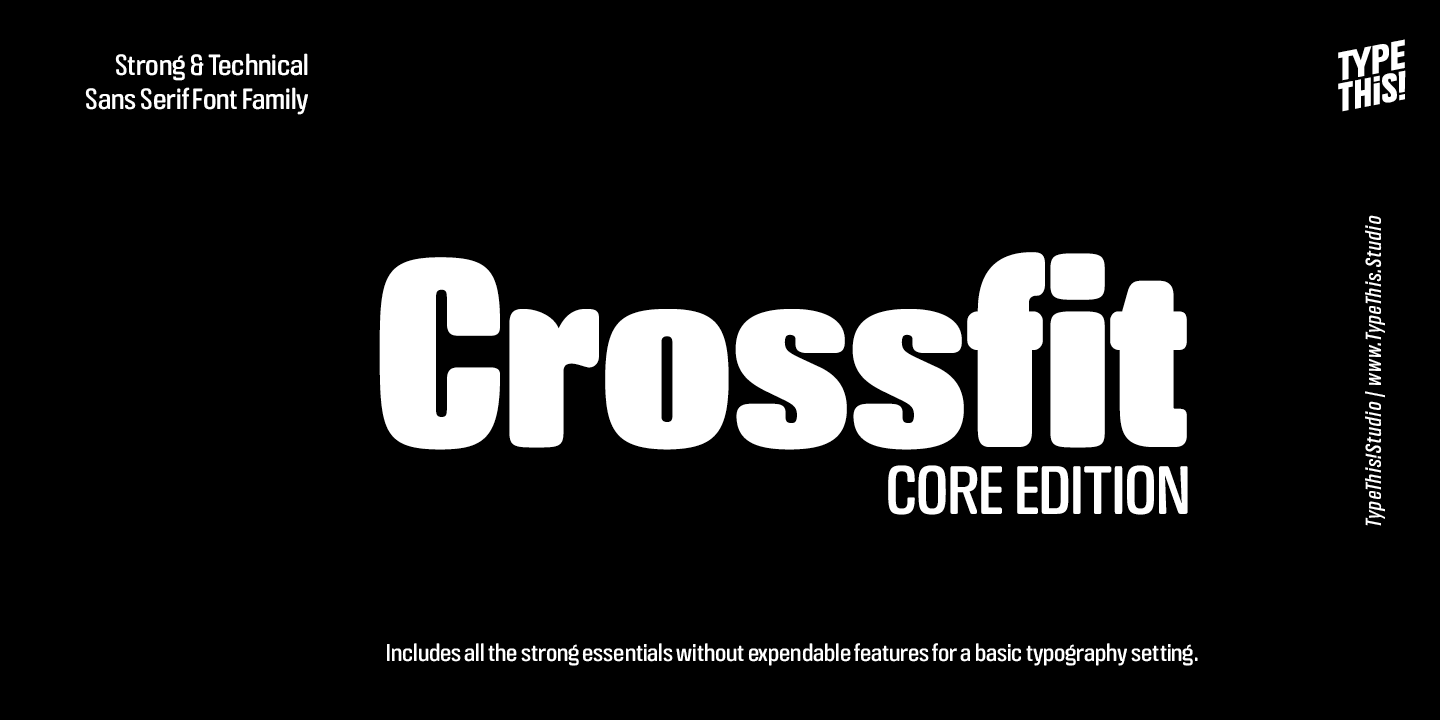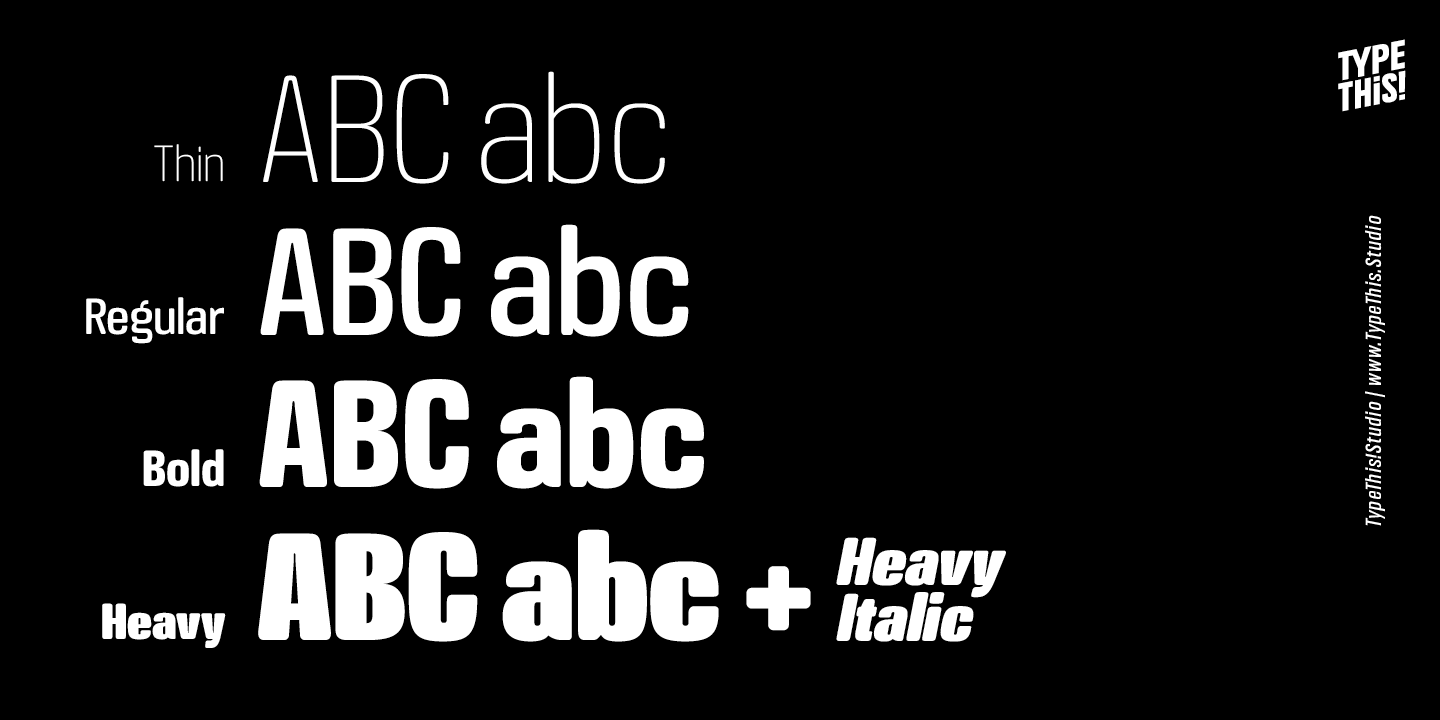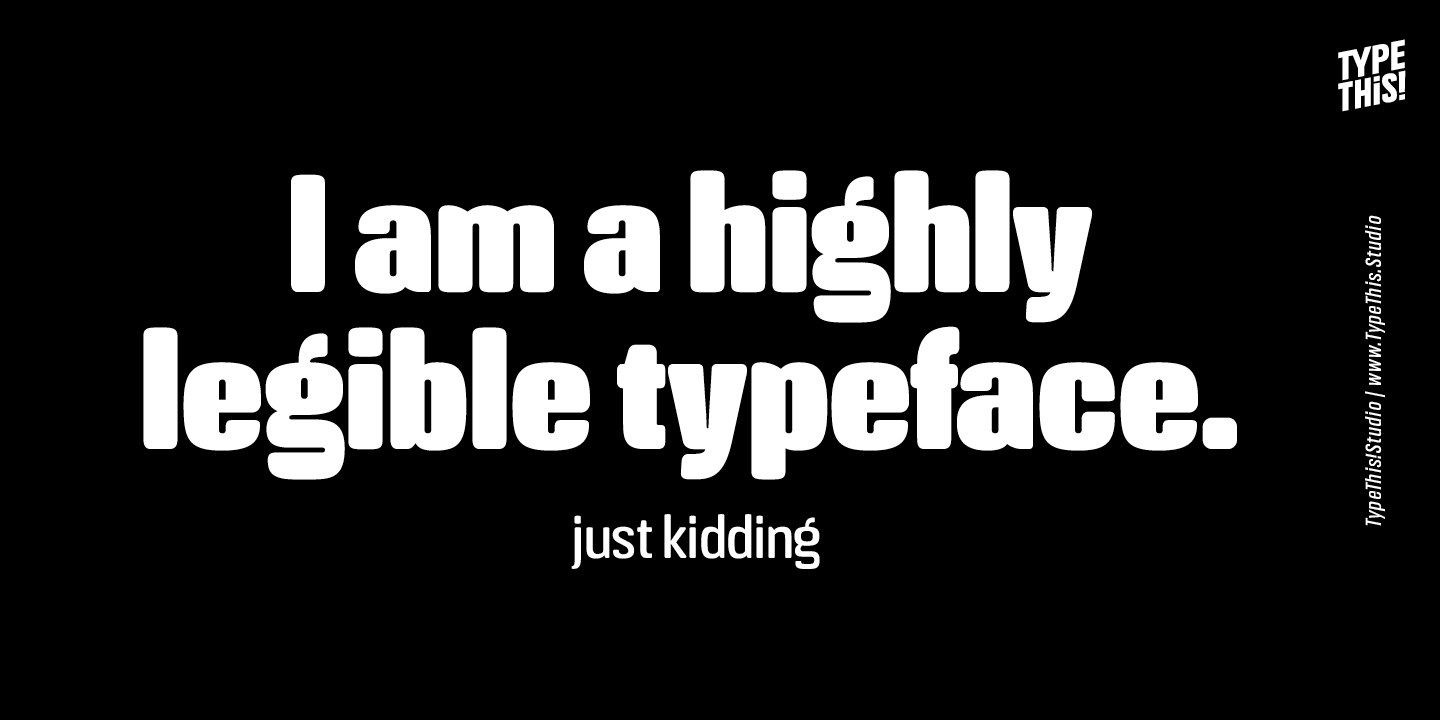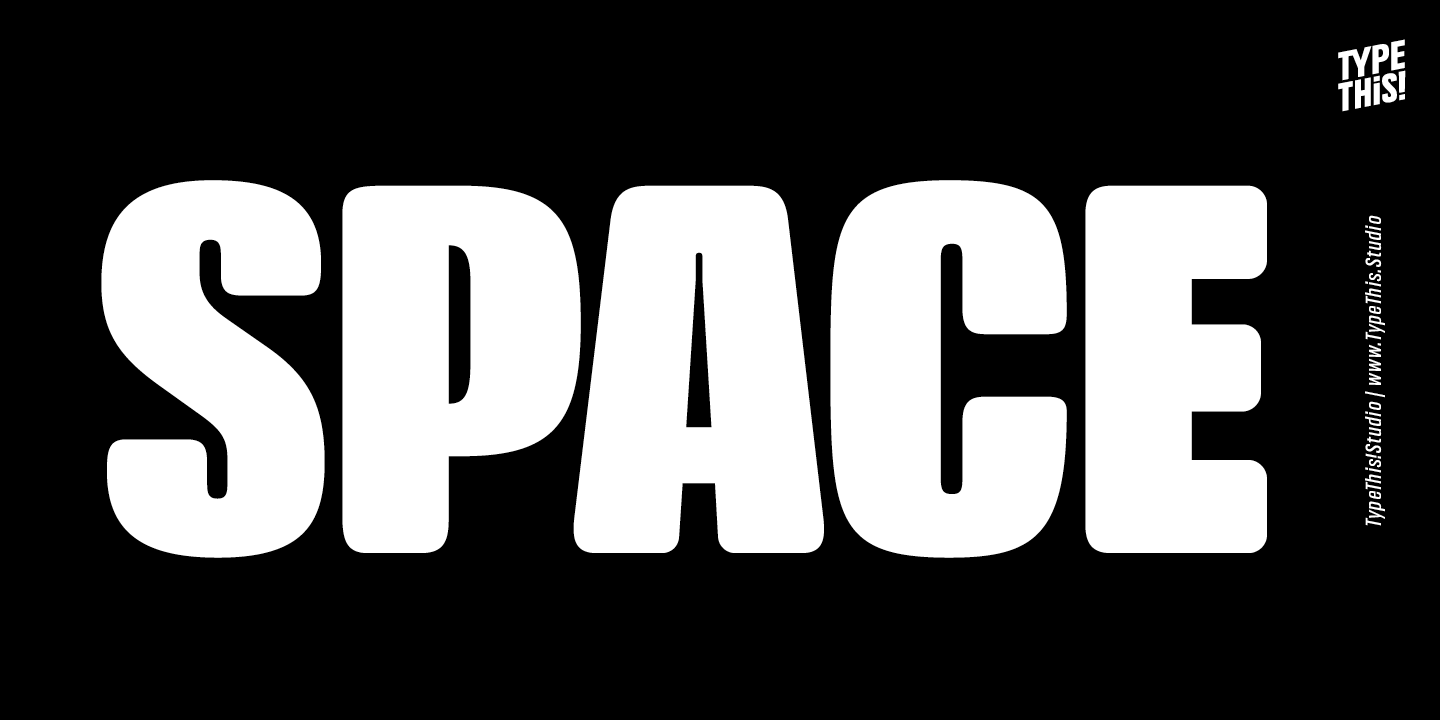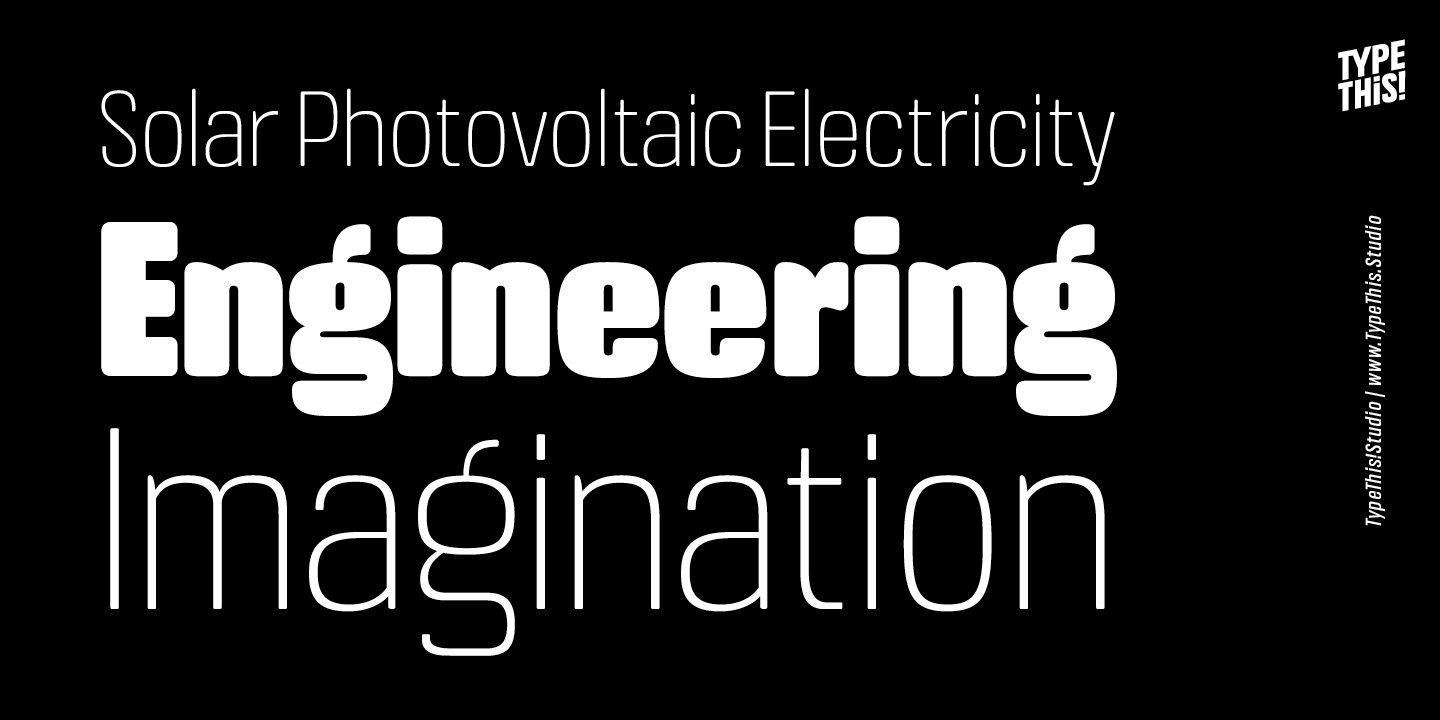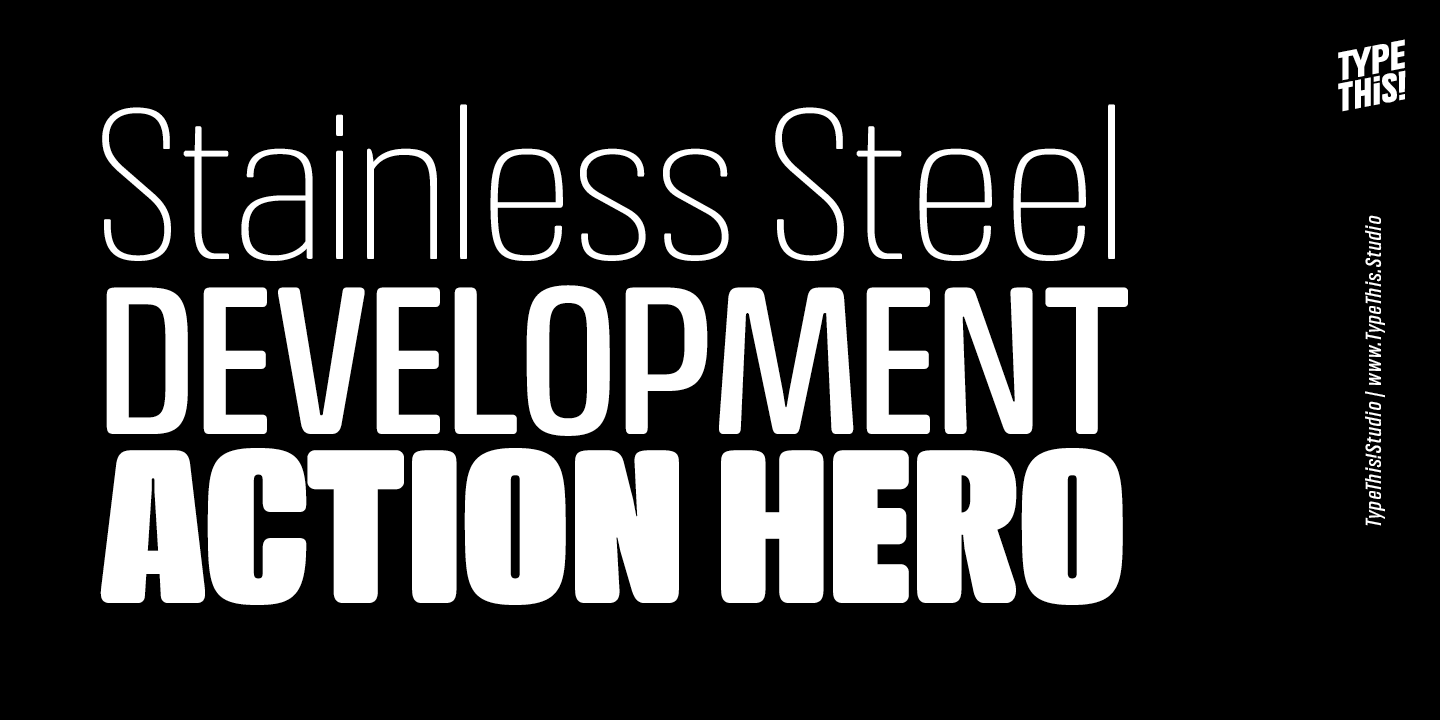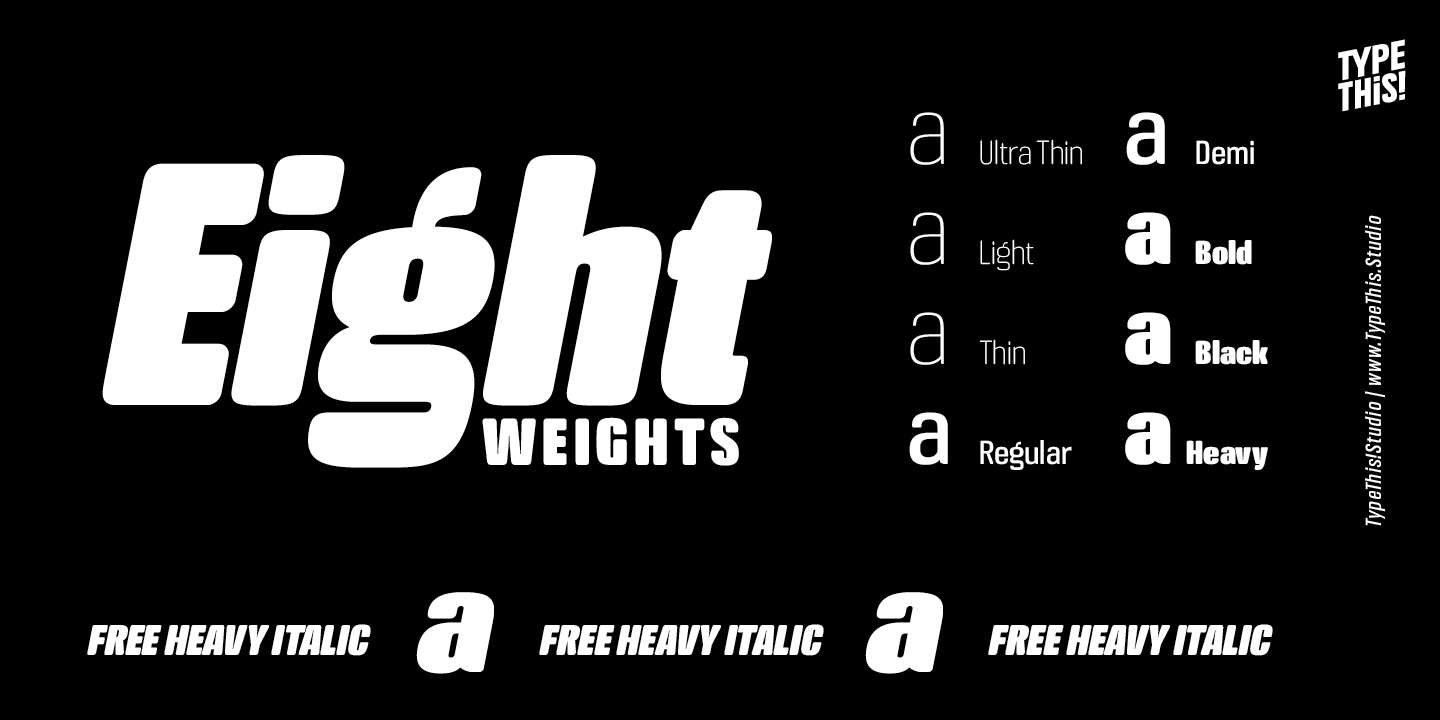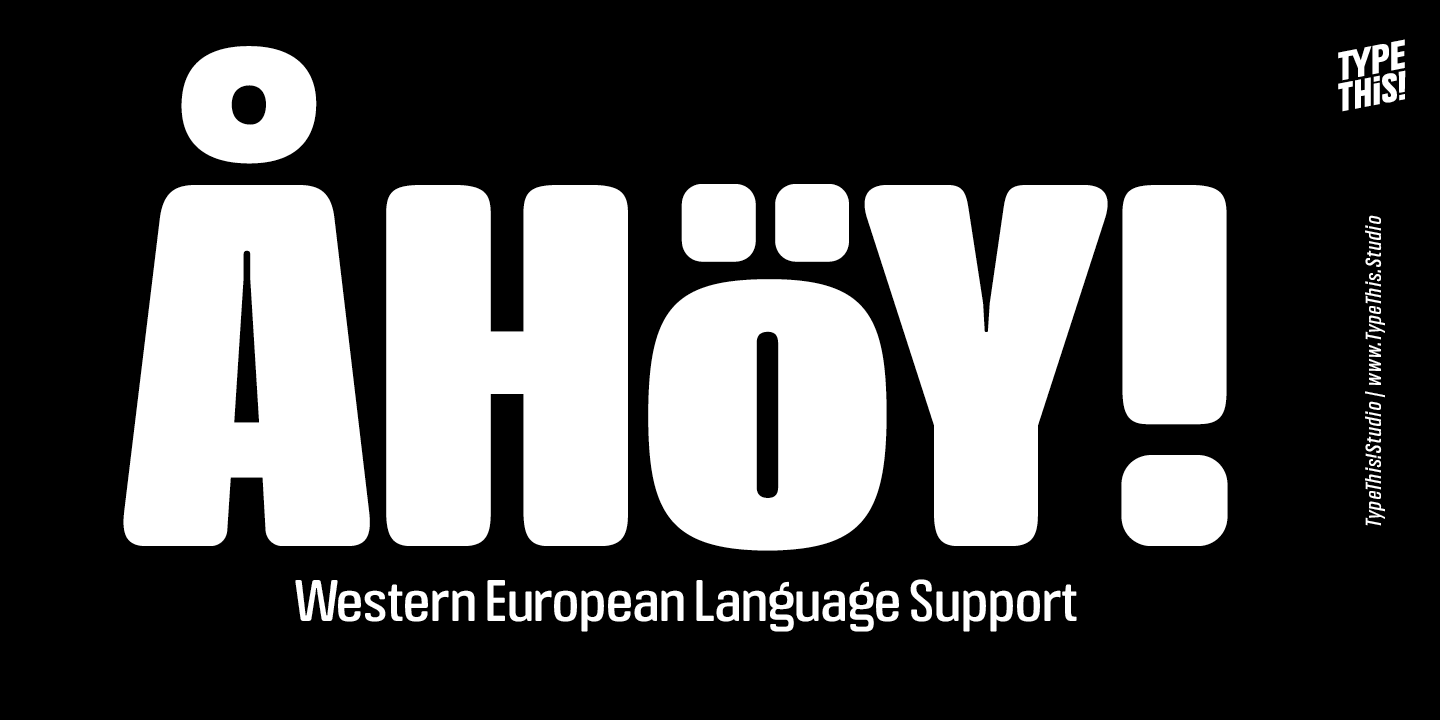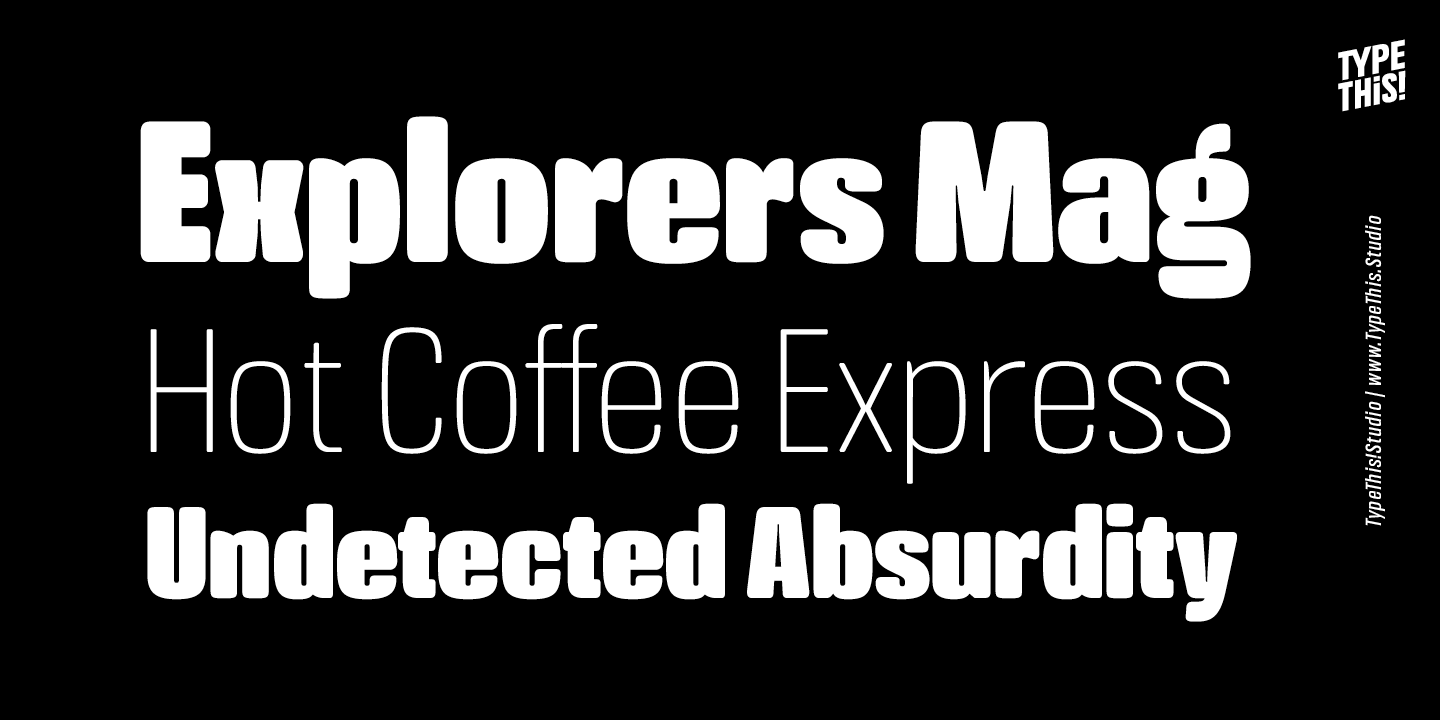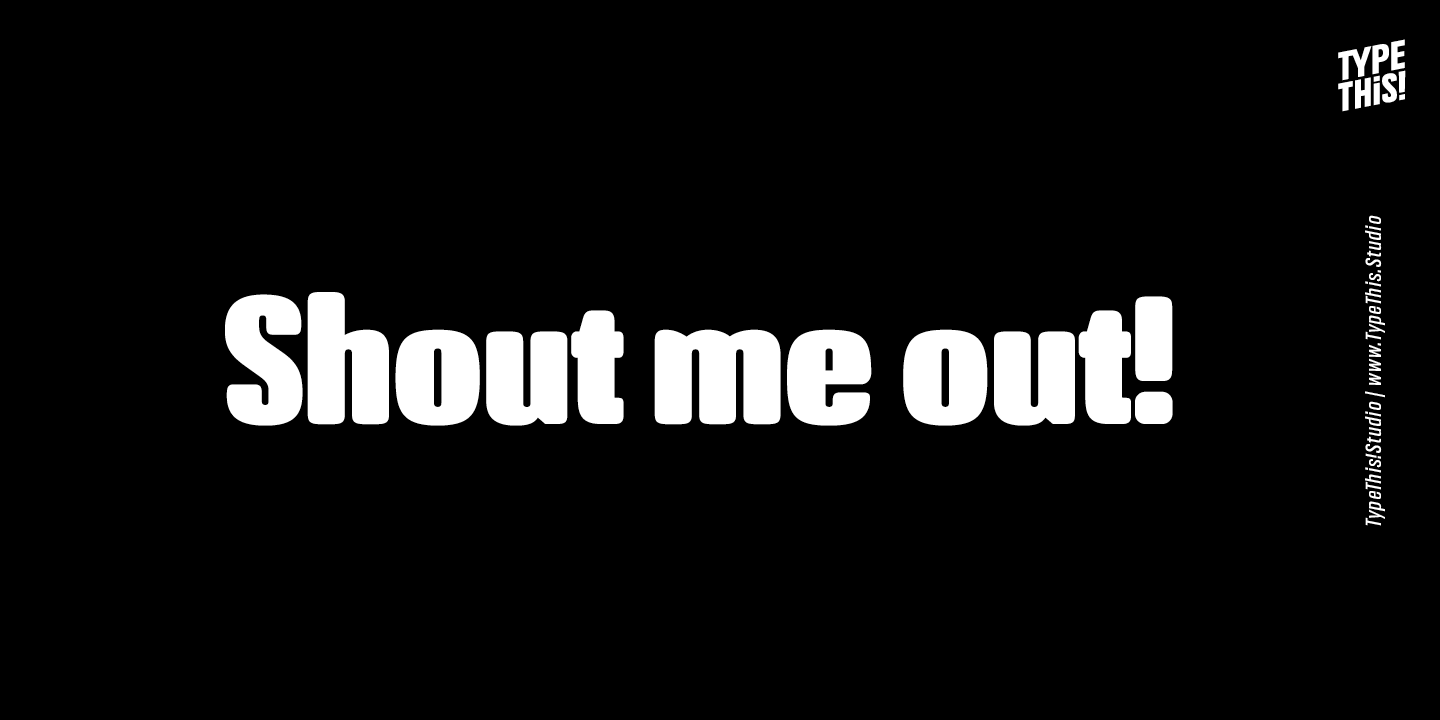
Crossfit Core
Crossfit is a new headline font for great sizes, such as big movie posters, advertising or editorials. Matching topics might be adventures, sports, strong nature and all kind of challenging life events. Its bold stability transforms your creation into a non questionable design. It is bold, clear and also friendly thanks to its rounded corners. With its non eccentric steadiness Crossfit underlines all your exciting creations in magazines, editorial, title design and of course: your big blockbuster movie.
This version covers all the essentials of Crossfit:
? 265 Characters
? 8 Styles, including Italics
? Western European Language Support
? Numbers
? Symbols
? Punctuation